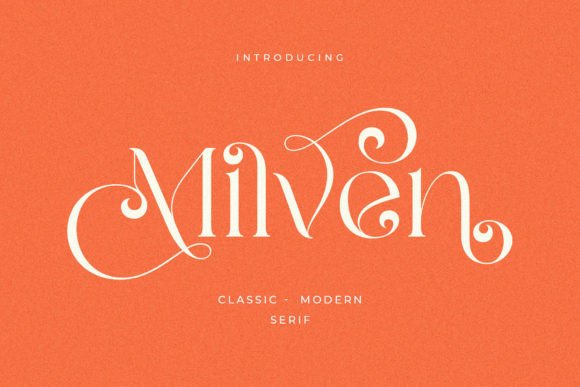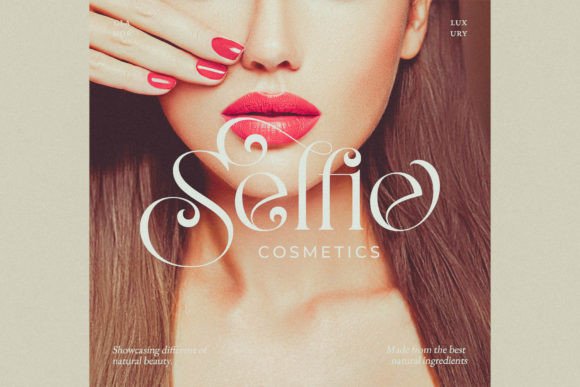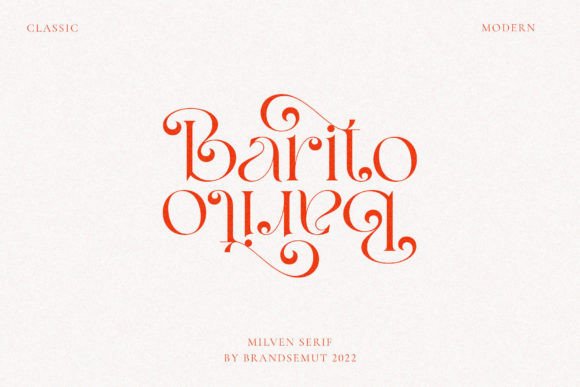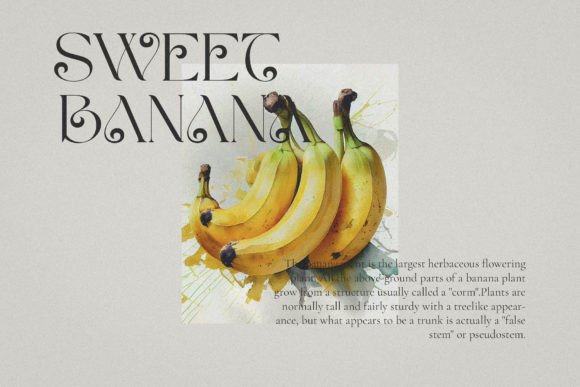
Milven Font: Elegant Serif Typography for Modern Branding & Logo Design
About the Milven Font
Presenting Milven Font, a unique and stylish typeface that will make your work stand out. Milven is a modern and stylish serif font. Masterfully designed to become a true favorite, this font has the potential to bring each of your creative ideas to the highest level!
Milven’s modern serif design excels in headlines, logos, and short-form text like posters or packaging where its stylish character makes a strong statement. Its refined elegance lends itself well to branding projects requiring a touch of sophistication. However, its less-than-optimal x-height makes it unsuitable for extended body text or UI elements.
For effective pairings, consider complementing Milven with a clean sans-serif like Open Sans for body text, creating a balanced contrast between elegance and readability. Alternatively, a playful script font could add a touch of personality for specific applications, while a geometric sans-serif would offer a more contemporary juxtaposition.
Milven projects a sophisticated and bold personality, ideal for brands aiming for a modern yet timeless feel. Its strong vertical strokes and subtle detailing convey confidence and authority without appearing overly austere.